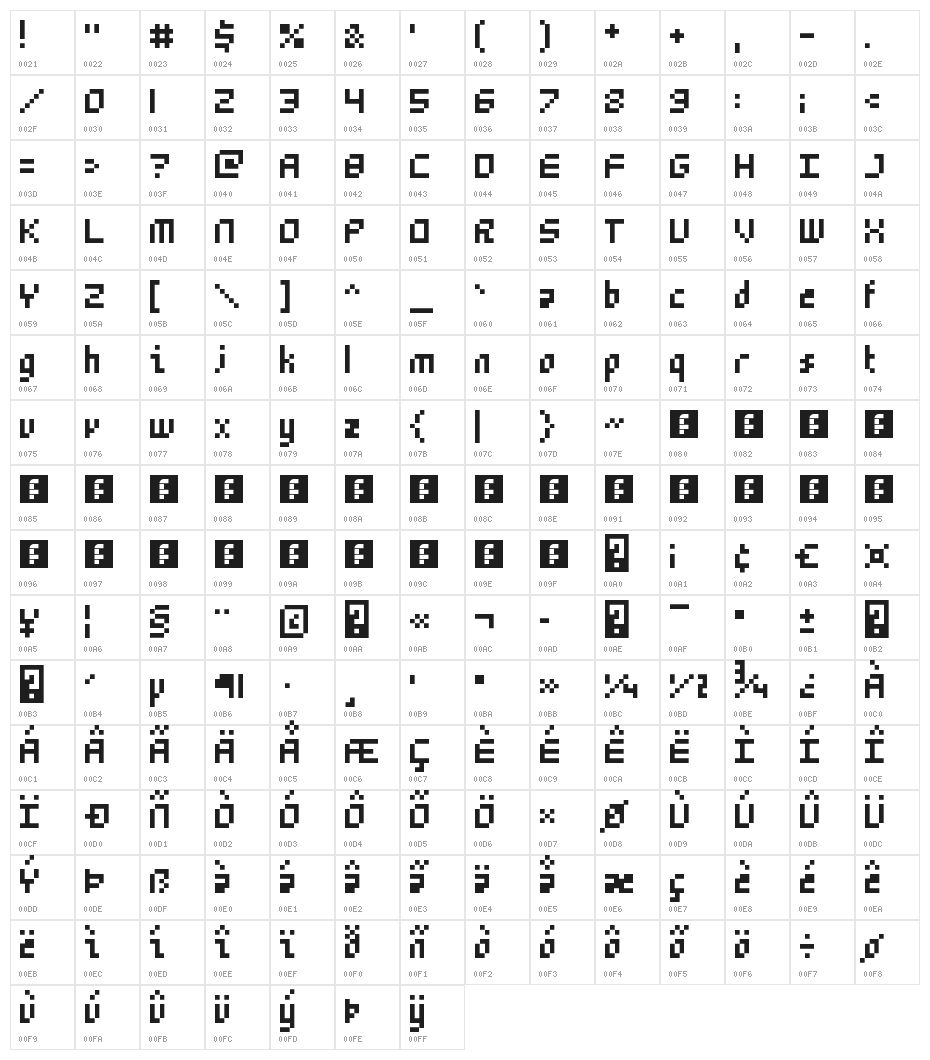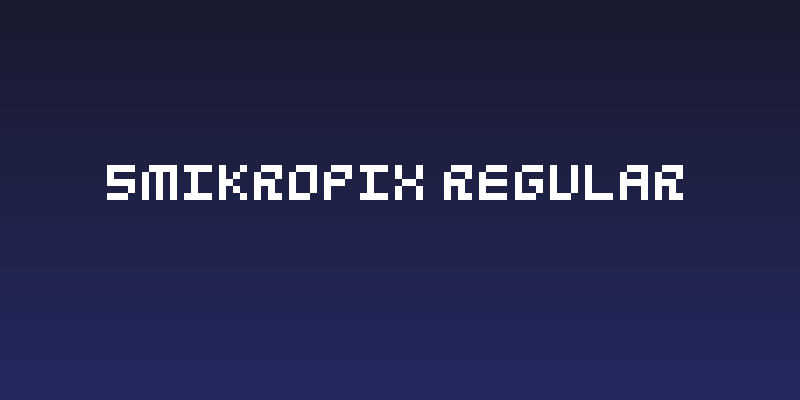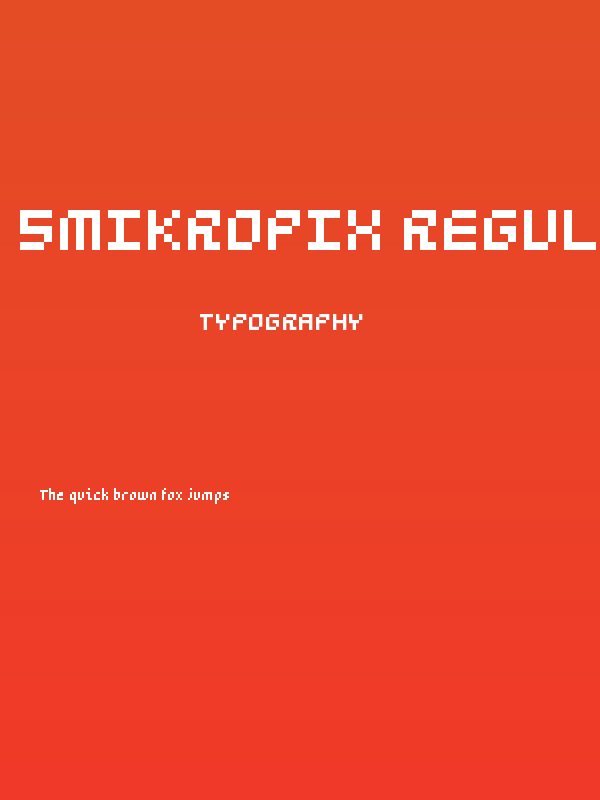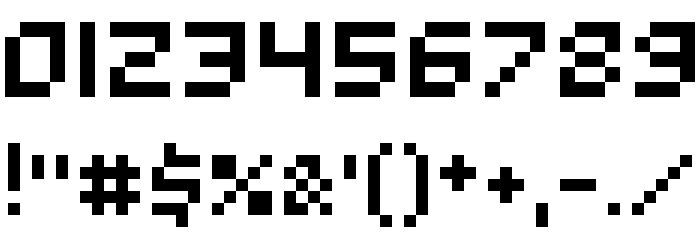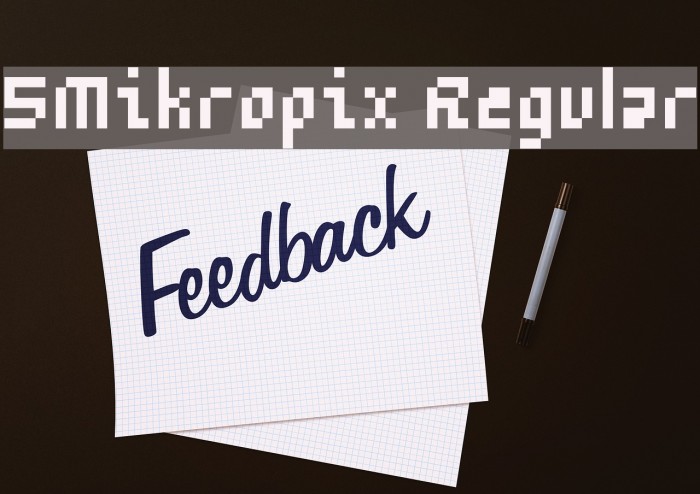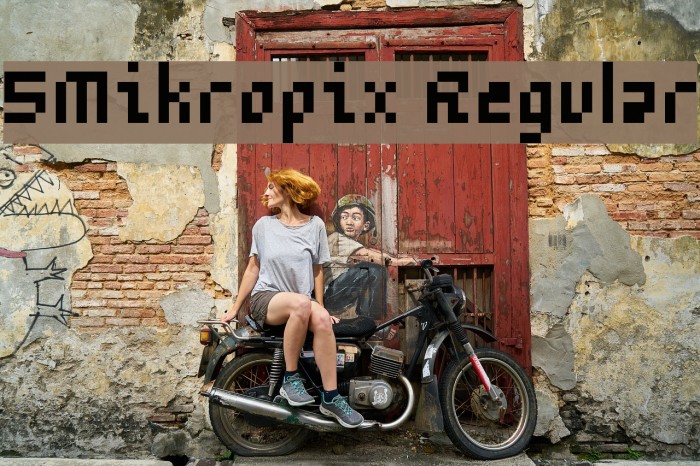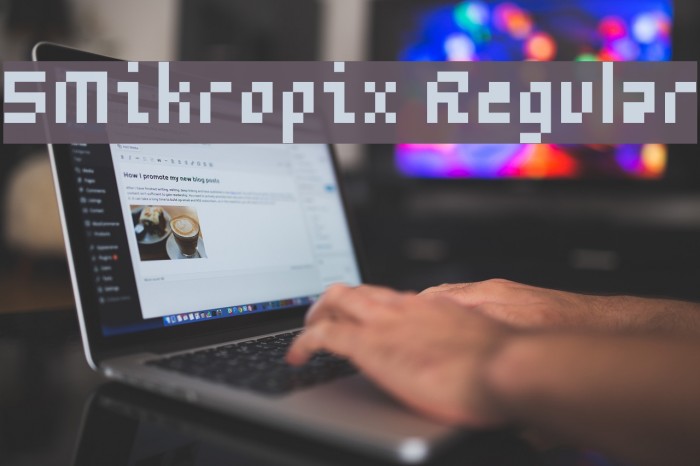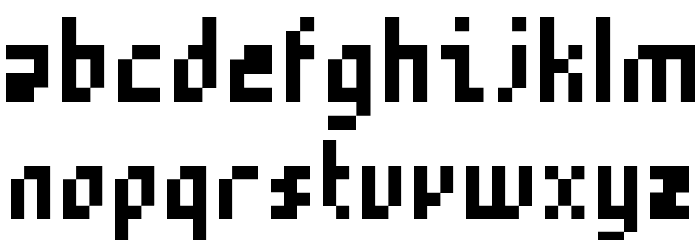
5Mikropix Regular Font
5Mikropix Regular Description
This font features a pixelated, blocky style reminiscent of early digital and video game typography. Each character is constructed with a grid-like precision, giving it a distinctly retro and technological feel. The uppercase and lowercase letters maintain a consistent height, enhancing its uniform appearance. Numbers and special characters follow the same pixelated design, ensuring a cohesive look across all glyphs. The font's simplicity and clarity make it highly legible, even at smaller sizes, and its nostalgic aesthetic is perfect for projects that aim to evoke a sense of classic digital or arcade themes.
| Use Case | Logos, Headlines, Digital interfaces |
| Proposed Projects | Ideal for video game design, retro-themed posters, digital art, and tech-related branding. |